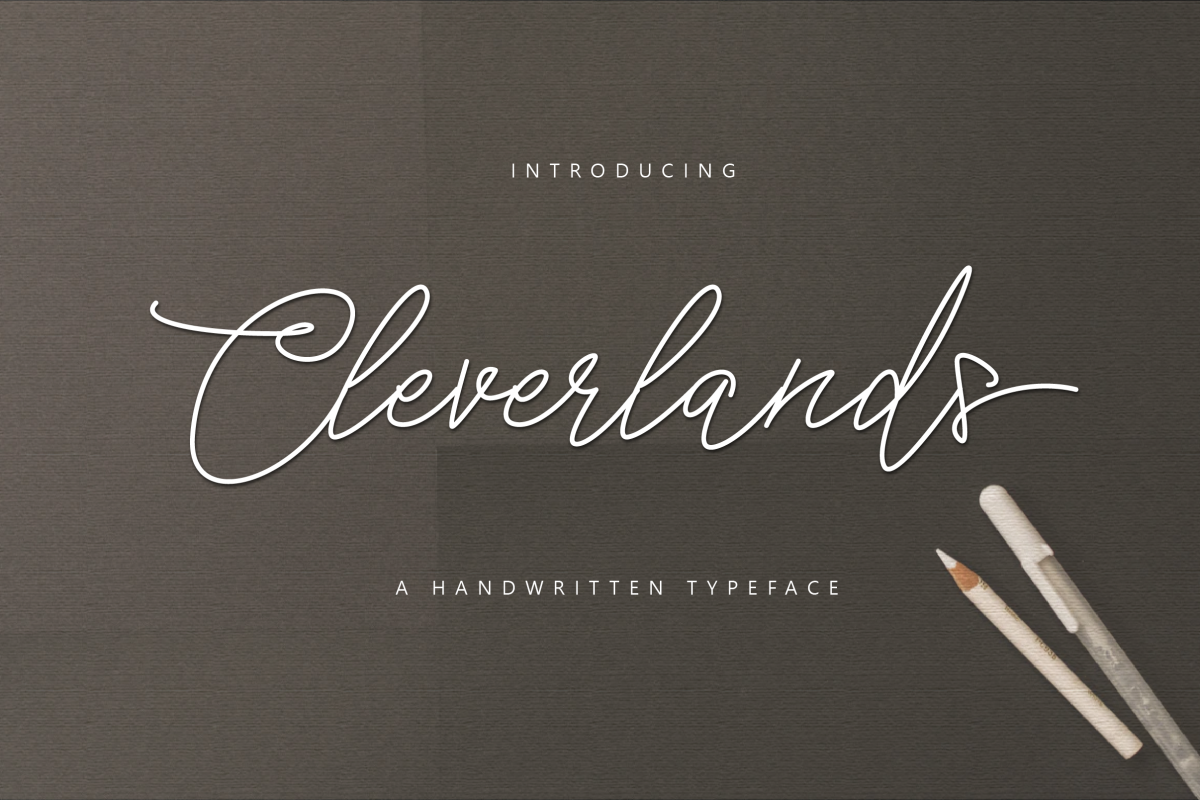
Cleverlands
Introducing a new handwritten typeface, It is suitable for your needs, such as NameCard, clothing brands, Cafe brands, food brands, advertising slogans, food packaging designs, wise words, instagram ads, facebook, youtube. All ad elements are suitable for this Font.